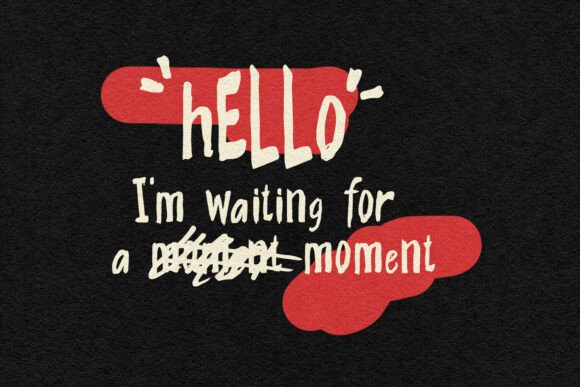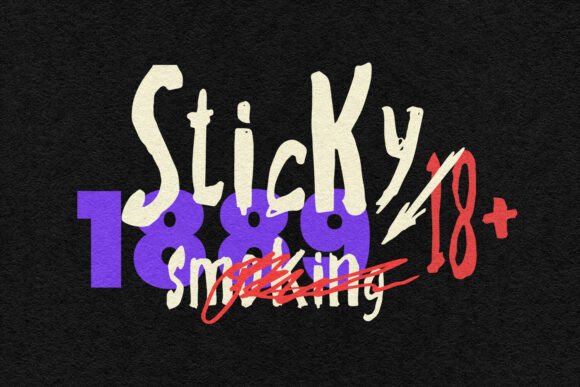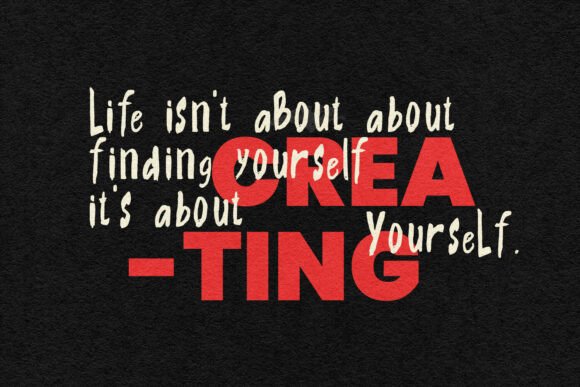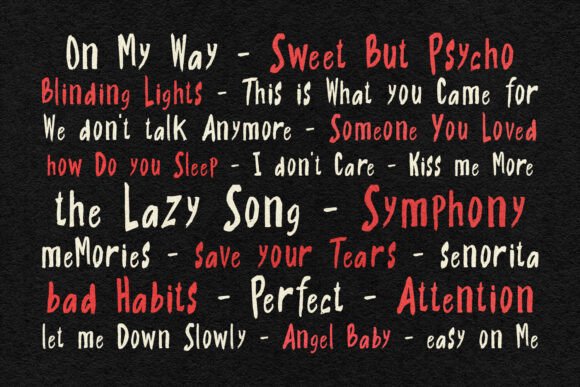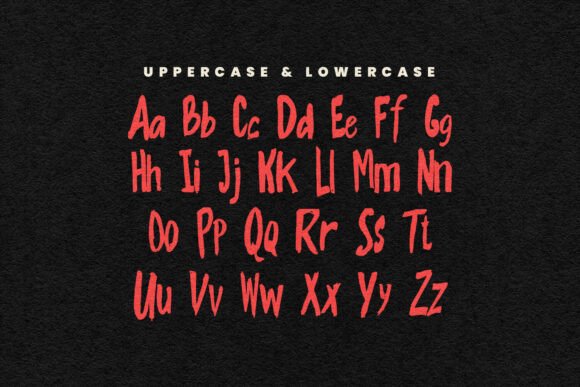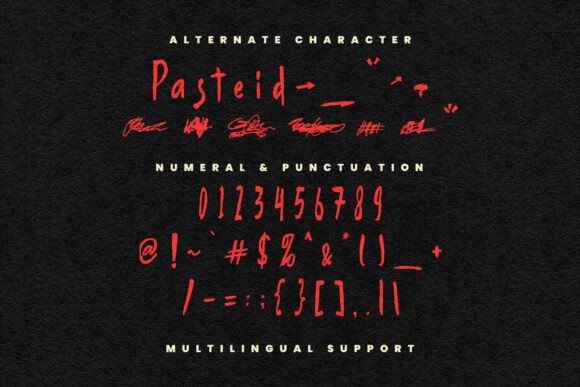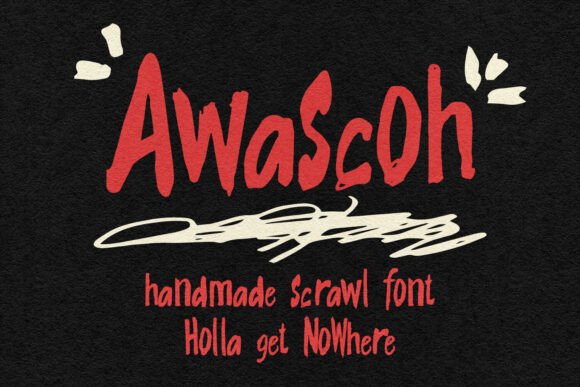
The Designer’s Delight: Awascoh Font
Have you ever been in the middle of a design project, and suddenly, you’re stuck on finding the perfect font? I recall a recent experience where I was working on a logo design for a client’s handmade jewelry business. I wanted a font that captured the essence of handmade, yet was stylish and modern. That’s when I stumbled upon the Awascoh Handmade font. It was love at first sight! 💕
A Personal Review: What I Love About Awascoh
Here’s what makes Awascoh Handmade a standout font:
• ✨ Playful and Stylish: Awascoh has a natural, imperfect look that adds a touch of whimsy to any design.
• ✅ Versatile: It’s perfect for a wide range of creative projects, from logos, greeting cards, to social media posts.
• 💖 Unique and Friendly Style: This font adds a charm and personality to your designs that’s hard to achieve with more traditional fonts.
While Awascoh Handmade is a beautiful font, there are a few things to keep in mind:
• ⚠️ Legibility at Small Sizes: Like many handwritten fonts, Awascoh can be a bit tricky to read at very small sizes. It’s best used at larger sizes where its unique charm can shine.
• 🤔 Pairing with Other Fonts: Due to its distinctive style, Awascoh can be a bit challenging to pair with other fonts. It’s best to stick with simple, clean fonts to avoid visual overload.
Exploring OpenType Features
Awascoh Handmade supports OpenType features, which allow for advanced typographic control. These features include:
Feature Description
Stylistic Alternates Provides alternative glyphs for a more personalized look.
Swashes Adds decorative elements to your text for extra flair.
The Inspiration Behind Awascoh
While the origins of Awascoh Handmade are shrouded in mystery, it’s clear that the designer aimed to create a font that felt approachable and personal. The name “Awascoh” suggests a connection to nature and handmade crafts, reflecting the font’s organic and imperfect feel.
Q: Is Awascoh suitable for body text?
A: While Awascoh Handmade is stunning, it’s best used for headings and short paragraphs due to its unique style and potential legibility issues at smaller sizes.